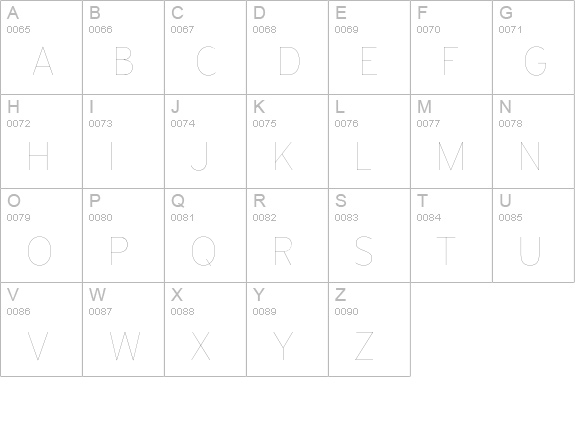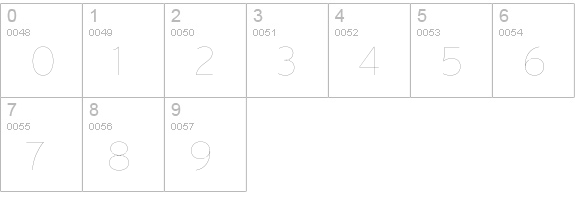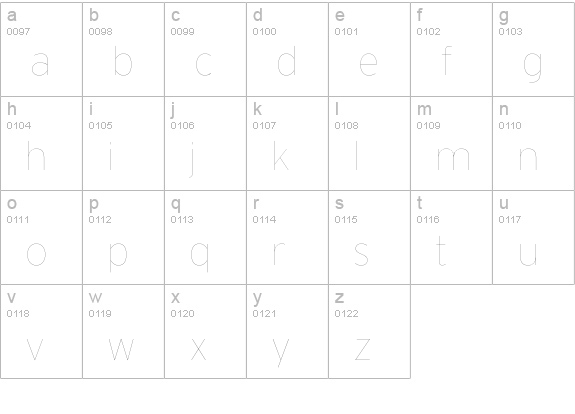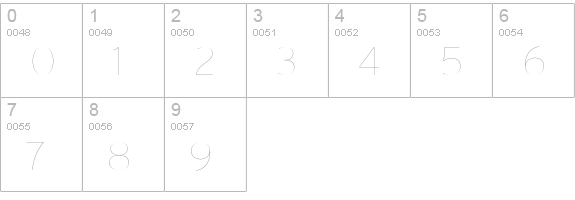
Interstate Hairline is an exceptionally fine, almost invisible variant in the Interstate typeface family \xE2\x80\x94 well suited to high-end editorial, fashion, and luxury display use.
Introducing Interstate Hairline, a stunning font that exudes elegance and sophistication. With its delicate and slender strokes, this font effortlessly captures attention and adds a touch of refinement to any design project. Interstate Hairline is the perfect choice for those seeking a font that embodies modernity and sleekness. Its clean lines and precise curves create a sense of balance and harmony, making it ideal for both headlines and body text. Whether used in print or digital media, this font will take your project to the next level. One of the best features of Interstate Hairline is that it is freely available to download at FontsMarket.com. This means that you can easily access and use this font without any cost or hassle. It offers you the opportunity to bring your creative visions to life without breaking the bank. With its versatility and timeless appeal, Interstate Hairline is suitable for a wide range of applications. From elegant invitations and wedding stationery to high-end branding and advertising campaigns, this font will elevate your designs and leave a lasting impression. Don't miss out on the opportunity to add Interstate Hairline to your font collection. Visit FontsMarket.com today and experience the beauty and functionality of this remarkable typeface. Start creating captivating designs that will captivate and inspire your audience, all with the help of Interstate Hairline.